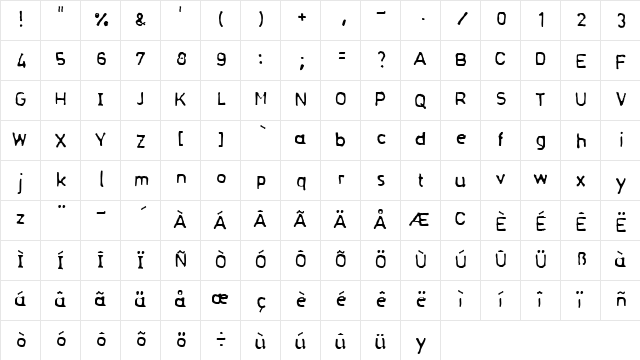
Normograf Regular
Design Context for Normograf Typeface
Normograf takes a measured approach to typography — its balanced proportions and neutral character make it a reliable workhorse for both digital and print work.